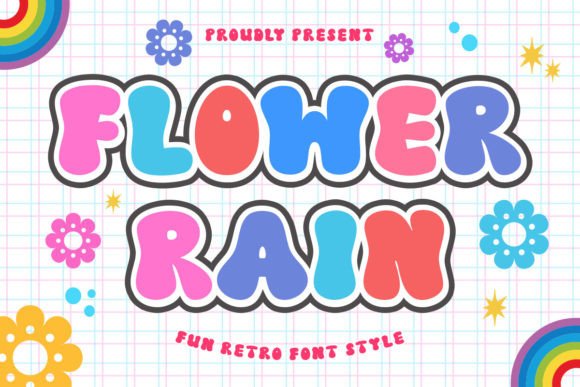
Welcome to the world of Flower Rain, a display font that oozes charm, playfulness, and retro vibes. Dive into a world of captivating designs where Flower Rain takes center stage, adding a dash of fun and a touch of nostalgia to your creations.
Born from the inspiration of bold retro typography, Flower Rain is a font that dances off the page, inviting you to explore a realm of creativity like never before. Its groovy nature is perfect for designs that demand a playful accent, a splash of energy that will make your projects stand out from the crowd.
Meticulously crafted by the talented Letter Muray, Flower Rain is more than just a font; it's a gateway to a world of endless possibilities. With its ability to transform ordinary designs into masterpieces, Flower Rain has the power to elevate your creative ideas to new heights.
Picture the vibrant book covers adorned with Flower Rain's charming letters, capturing the essence of your story and inviting readers to embark on a journey. Envision posters that come alive with Flower Rain's playful strokes, captivating audiences and leaving a lasting impression. Imagine packaging that exudes personality, thanks to Flower Rain's unique character, making your products irresistible.
Flower Rain's versatility extends beyond the printed world. It's the perfect companion for merchandise that demands attention, adding a touch of uniqueness to t-shirts, mugs, and other items. Bring life to your logotype with Flower Rain's distinctive style, ensuring your brand stands out in a sea of sameness.
With Flower Rain, the possibilities are limitless. Unleash your creativity and explore the endless design opportunities that await you. Join the ranks of satisfied users who have discovered the magic of Flower Rain, transforming their projects into works of art.